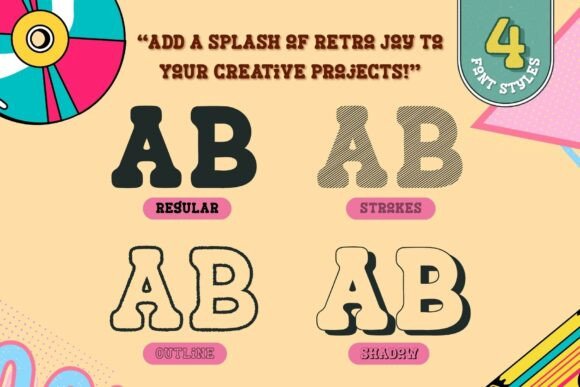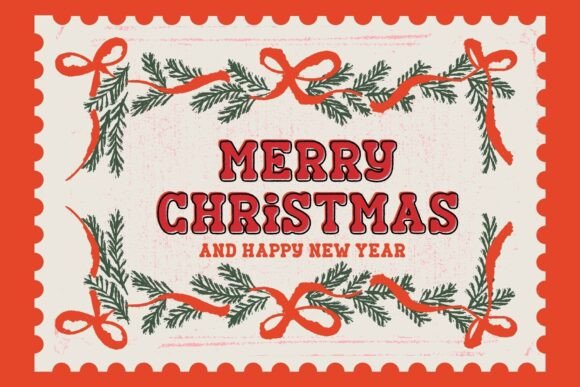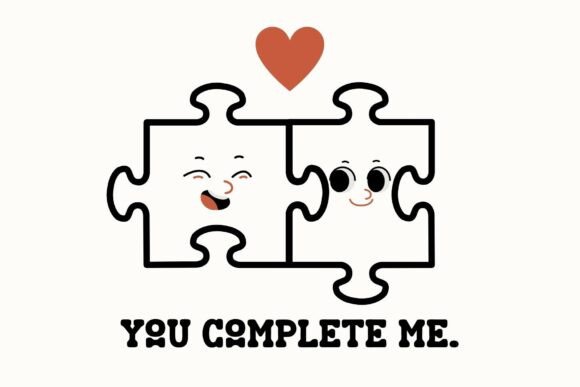
Introduction to Fox Cynthia Font
Remember that moment when you stumbled upon the perfect font to elevate your design project? For many of us, it’s a game-changer. If you’re on the hunt for a font that exudes the carefree spirit of the 70s, look no further than the Fox Cynthia Font. This delightful font family is a treasure trove of quirky curves, chunky serifs, and vintage charm, making it an ideal addition to your design resource.
As a designer, you understand the importance of finding the right font to bring your creative project to life. With Fox Cynthia Font, you’ll have endless possibilities to mix and match styles – Regular, Strokes, Outline, Shadow – to achieve a unique look that’s both high-quality and visually appealing. Whether you’re working on a retro poster, branding, or social media graphics, Fox Cynthia Font is a valuable asset that’s sure to add a splash of fun and personality to your designs.
- High-quality design resource ideal for creative projects, offering a unique and elegant style.
- Designed with a high resolution, ensuring crisp and clear text display in various sizes and resolutions.
- Perfect for use in a variety of creative projects, including digital art, graphics, and typography-based designs.
Honest Review: Fox Cynthia Font
I recently had the opportunity to work with the Fox Cynthia Font, and I must say it’s been a game-changer for my design projects. The font is a high-quality design resource that offers a lot of creative possibilities.
What works well with Fox Cynthia Font is its versatility. The font is available for free download, which is a huge plus. It’s perfect for designers who are working on a budget or just starting out. Additionally, the transparent background feature makes it easy to use with any design.
Here are some of the features that I love about Fox Cynthia Font:
- Perfect for creative projects
- Not as many font styles available
- Some users may find the font too playful for certain projects
Overall, I’m really impressed with Fox Cynthia Font. It’s a great design resource that can add a lot of creativity to your projects. With its high-quality design and transparent background feature, it’s a must-have for any designer.
Tips for Getting the Most Out of Fox Cynthia Font
To get the most out of Fox Cynthia Font, experiment with different font sizes, colors, and styles to find the perfect combination for your design project. Additionally, use the font in conjunction with other design elements to create a visually appealing and high-quality design.
Common Use Cases for Fox Cynthia Font
The Fox Cynthia Font is a versatile design resource that can be used in a variety of creative projects, including graphic design, web design, and marketing materials. Its high-quality design and transparent background features make it an ideal choice for designers looking to create professional-looking designs.
Alternatives to Fox Cynthia Font
What is the recommended usage for the Fox Cynthia Font?
The Fox Cynthia Font is designed for use in various creative projects, including digital art, graphic design, web design, and more. It’s ideal for headings, titles, and body text, and can be used in both print and digital formats. However, please ensure to follow the font’s licensing terms and conditions for commercial use.